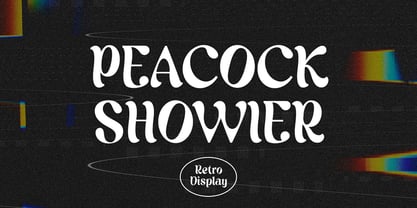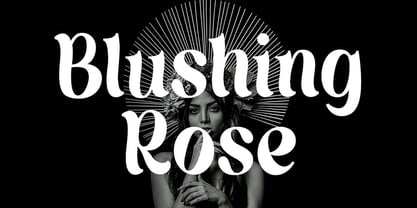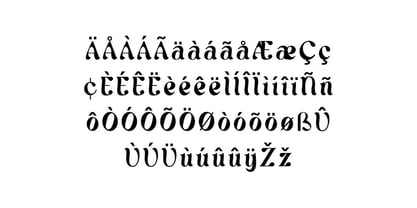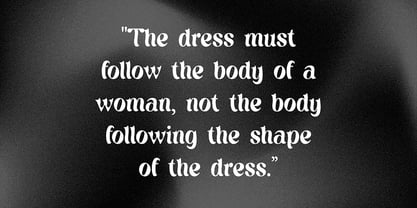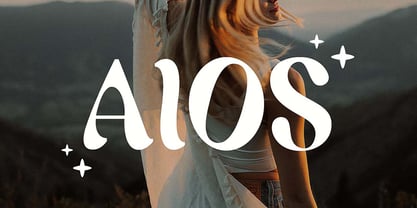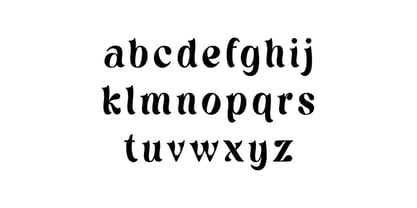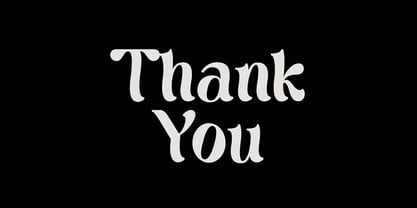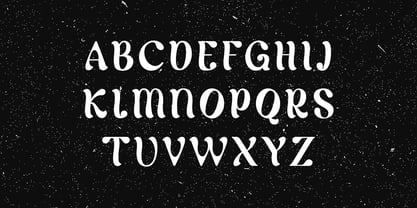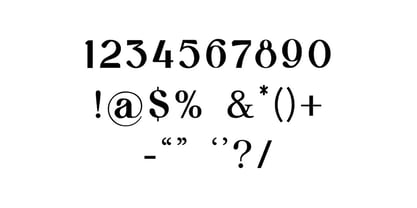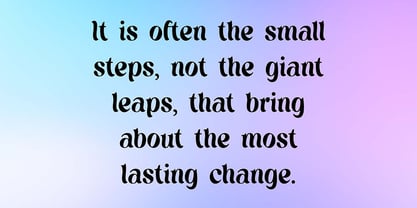
Peacock Showier
Peacock Showier Retro Serif Display Font. The modern display font feels beautiful classy, elegant, and stylish. This font is ideally suited for a wide variety of projects, such as signature, stationery, logo, wedding, typography quotes, magazine or book covers, website headers, branding, and more. Also, fashion-related branding or editorial design displays both masculine and feminine qualities.